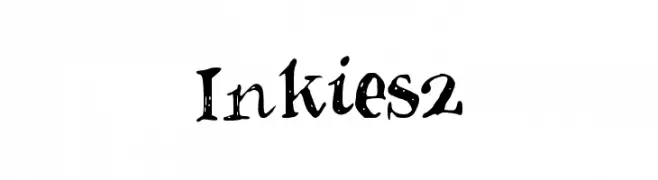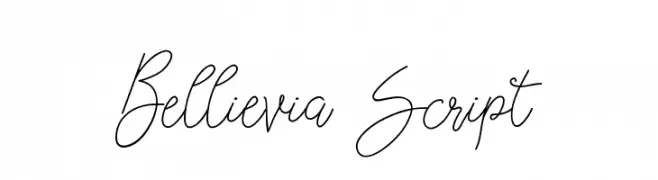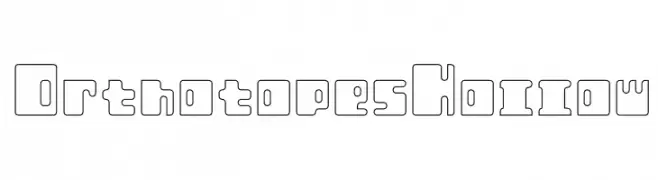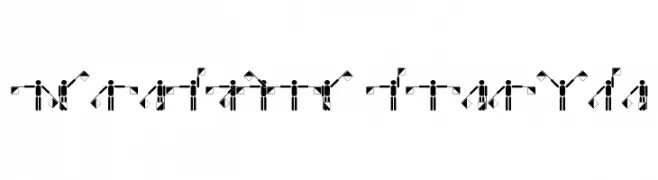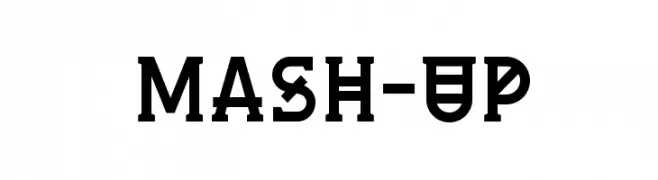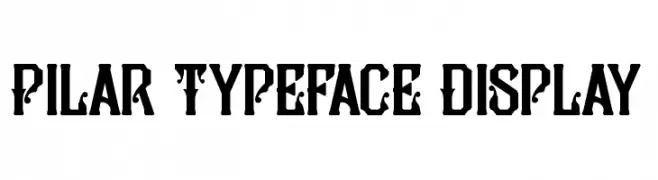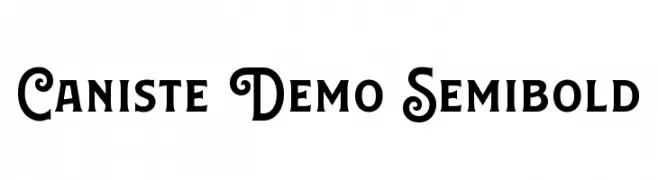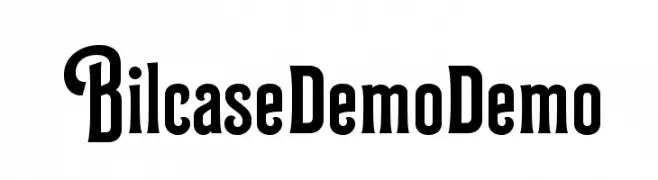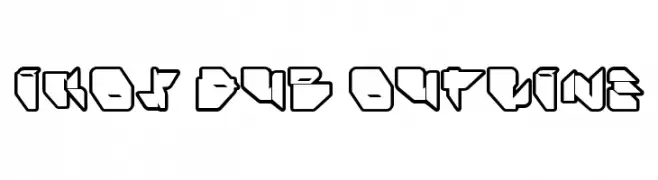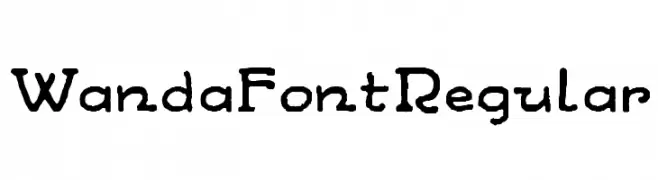
( Ingeborg Vriends - www.inkies.nl )
A distressed, hand-drawn font with irregular edges and an artistic flair.
( Indriyanti )
A graceful script font with flowing, connected letters and elegant flourishes.
( Indriyanti )
An elegant script font with flowing, cursive strokes and ornate uppercase letters.
( Indriyanti )
A bold, expressive script font with a lively handwritten style.
( Incstone Design, by Megami Studios - Rob Barba - www.incstonedesign.com/ )
A bold, distressed font with an eroded, industrial look.
( Incstone Design, by Megami Studios - Rob Barba - www.incstonedesign.com/ )
A geometric, hollow font with a modern and futuristic design.
( Imran Nasution - Bayo Suti XV - imrannasution1.blogspot.com )
A semaphore-inspired font using flag positions to represent characters.
( Imam Zakaria )
A playful, double-outline font with looping, swirling characters.
( Ilyas Yunusov - www.behance.net/kulturrrno )
A bold, geometric font with strong lines and a modern aesthetic.
( Ilham Herry - ilhamherry.com )
A bold, decorative typeface with intricate details and ornate flourishes.
( Ilham Herry - ilhamherry.com )
A decorative and bold font with ornate uppercase and straightforward lowercase letters.
( Ilham Herry - ilhamherry.com )
A bold, modern serif font with a strong, impactful presence.
( Ilham Herry - ilhamherry.com )
A decorative and playful font with bold, whimsical elements and elegant serifs.
( Ildar Kinyabulatov - prounn.com )
A bold, blocky font with a pixelated, digital aesthetic.
( Ikos )
A bold, geometric font with sharp angles and a futuristic look.
( Ikos )
A bold, geometric outline font with a futuristic and edgy style.
( Iklaz Studio )
A modern, cursive script font with a handwritten, elegant style.
( Iklaz Studio )
A bold, geometric font with tall, narrow characters and a modern style.
( Igor Kosinsky - www.behance.net/Pj154 )
A modern, clean sans-serif font with balanced spacing and consistent stroke width.
( Igor Kosinsky - www.behance.net/Pj154 )
A modern sans-serif font with a clean, balanced design.
( Igor Kosinsky - www.behance.net/Pj154 )
A bold, geometric font with a double-line outline for a modern look.
( Igor Kosinsky - www.behance.net/Pj154 )
A modern, geometric sans-serif font with clean lines and balanced proportions.
( Igor Kosinsky - www.behance.net/Pj154 )
A modern, geometric sans-serif font with a clean and professional look.
( Igor Fonseca - www.igorfonseca.com )
A bold semi-slab serif font with strong serifs and rounded edges.
( Igor Berck - www.igorberck.com )
A modern, geometric sans-serif font with clean lines and uniform strokes.
( Ignacio Yunis - pastruki.blogspot.com/ )
A playful, hand-drawn style font with whimsical and organic characters.
( Ignacio Ponce )
A modern, striped font with a barcode-like appearance.
( Ideoma - ideoma design - www.logotipo.pt )
A modern, geometric sans-serif font with consistent stroke width and clear readability.
( Ideoma - ideoma design - www.logotipo.pt )
A bold, modern stencil-style font with geometric shapes and cut-out sections.
( Ideoma - ideoma design - www.logotipo.pt )
A bold, geometric font with angular shapes and a modern aesthetic.
( Ideoma - ideoma design - www.logotipo.pt )
A modern, geometric font with clean lines and rounded edges.
( Ideas and Apps - Angel García Rubio - www.ideasandapps.com )
A whimsical and playful font with curly, looping strokes and decorative swirls.
( Ideas and Apps - Angel García Rubio - www.ideasandapps.com )
A bold, angular font with a rugged, industrial style.
A bold, futuristic engraved italic font with a three-dimensional effect.
A bold, futuristic font with a chrome-like, three-dimensional appearance.